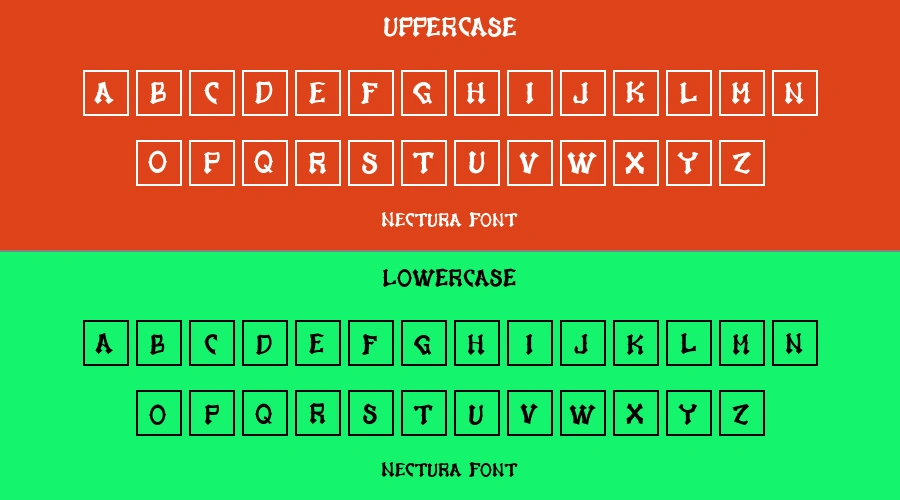
About Nectura Font
Designed with precision, Nectura Font merges calculated proportions with visual comfort in every character. This versatility makes it particularly effective for book design, where expressiveness and user trust directly impact communication quality. Each letterform demonstrates meticulous craftsmanship.
Technical excellence shines through elements like architectural precision and lining figures, enhancing typographic versatility. In display applications settings, Nectura Font proves its worth through superior detail preservation. The thoughtful execution of loop structure and research value ensures professional results.